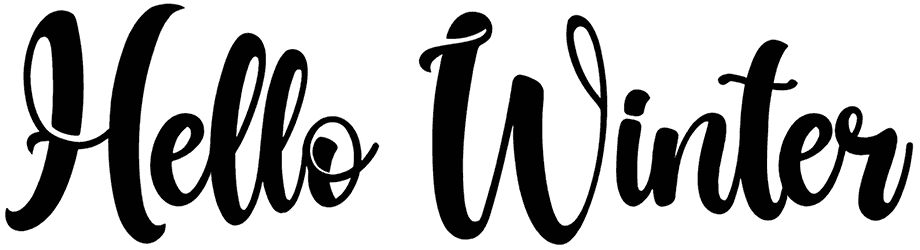
Hello Winter Font
For varied designs that need to impress a lot of viewers, using a Christmas font like this one would be a clever choice. The characters are smooth and cursive, which could throw a classic and charming vibe into your words. The Hello Winter font can nicely adorn your designs, such as a wedding card, and show off your unique taste.